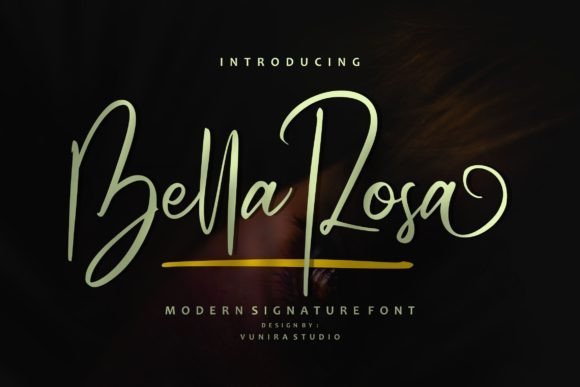
Adding a Touch of Elegance to Your Designs
You know that moment when you’re working on a project, and you just can’t seem to find the right font to match your vision? You scroll through font options, trying to find the perfect combination of style and sophistication. And then, it hits you – the perfect font that elevates your design from good to great.
Enter the Bella Rosa Font, a chic and modern signature font that adds a touch of elegance to your projects. With its graceful strokes and contemporary flair, this font brings a stylish, personalized feel to your text. Whether you’re creating invitations, branding materials, or any other project that calls for a trendy and refined signature style, the Bella Rosa Font is an ideal choice.
As a designer, you know how valuable it is to have a versatile font that can add a touch of class to any design. The Bella Rosa Font effortlessly combines modernity with a timeless signature aesthetic, making it a must-have for any creative project.
Bella Rosa Font Key Features
- Unique Characteristics: Bella Rosa Font features a unique, elegant design with a mix of modern and traditional elements, making it suitable for various design projects.
Bella Rosa Font Review
As a designer, I recently had the chance to work with the Bella Rosa font, and I wanted to share my honest thoughts on it.
- The Bella Rosa font has a beautiful, elegant design that makes it perfect for creating a luxurious and sophisticated look.
- It’s a great choice for titles and headings, as it adds a touch of class and refinement to any design.
- The font is highly customizable, allowing you to adjust the weight, style, and size to suit your design needs.
- The font is also highly legible, making it easy to read and understand.
- The font may be too ornate for some designs, which can make it difficult to read or understand.
- It may not be the best choice for body text, as it can be too fancy and overwhelming.
- The font may require additional styling or formatting to make it work well in certain design contexts.
The Bella Rosa font is a beautiful and elegant choice for designers looking to create a luxurious and sophisticated look. While it may have some limitations, it’s a great choice for titles, headings, and other design elements where you want to make a statement. With some careful styling and formatting, it can be a powerful tool in your design toolkit.
The Bella Rosa font is ideal for creative and elegant designs, making it perfect for:
– Luxury brand logos and marketing materials
– High-end packaging and labels
– Fashion and beauty branding